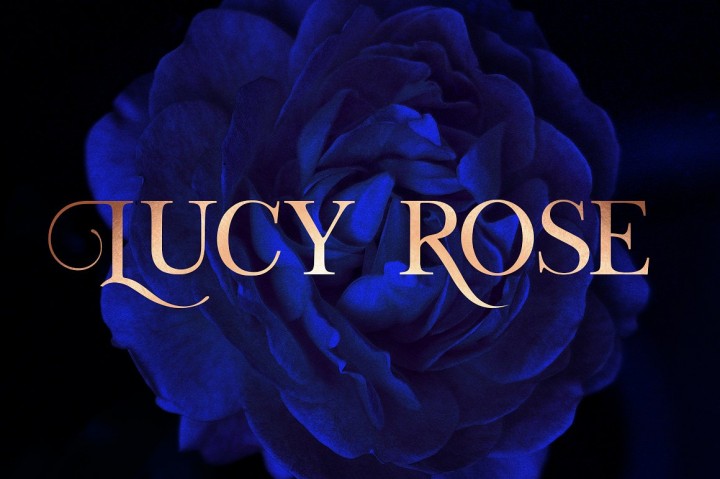
Free Font Lucy Rose - Personal Use
Today we're glad to feature this free font lucy rose - personal use. The Hungry JPEG has created this amazing and beautiful free typeface. This is absolutely fancy font so you can easily make world-class designs.